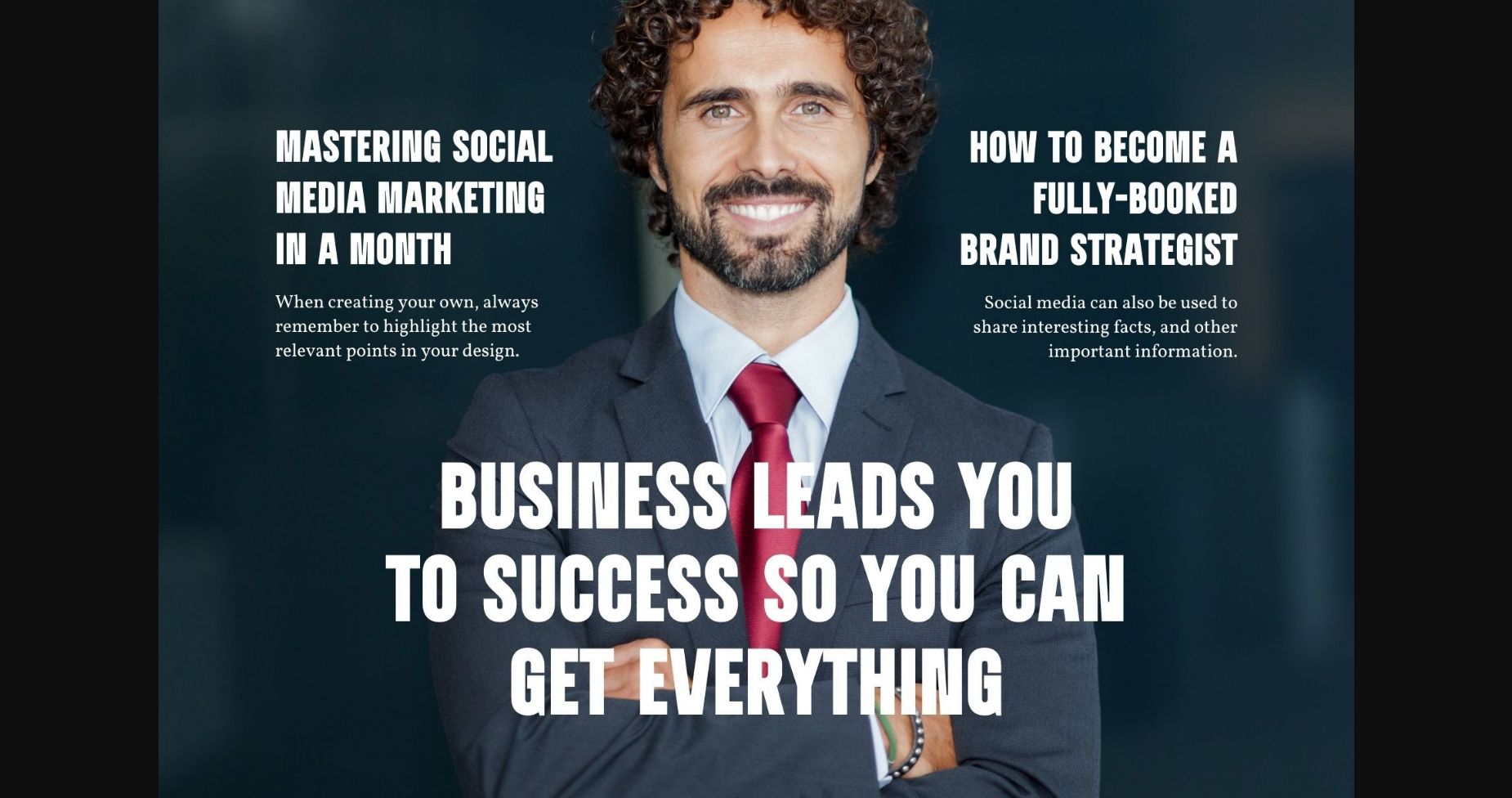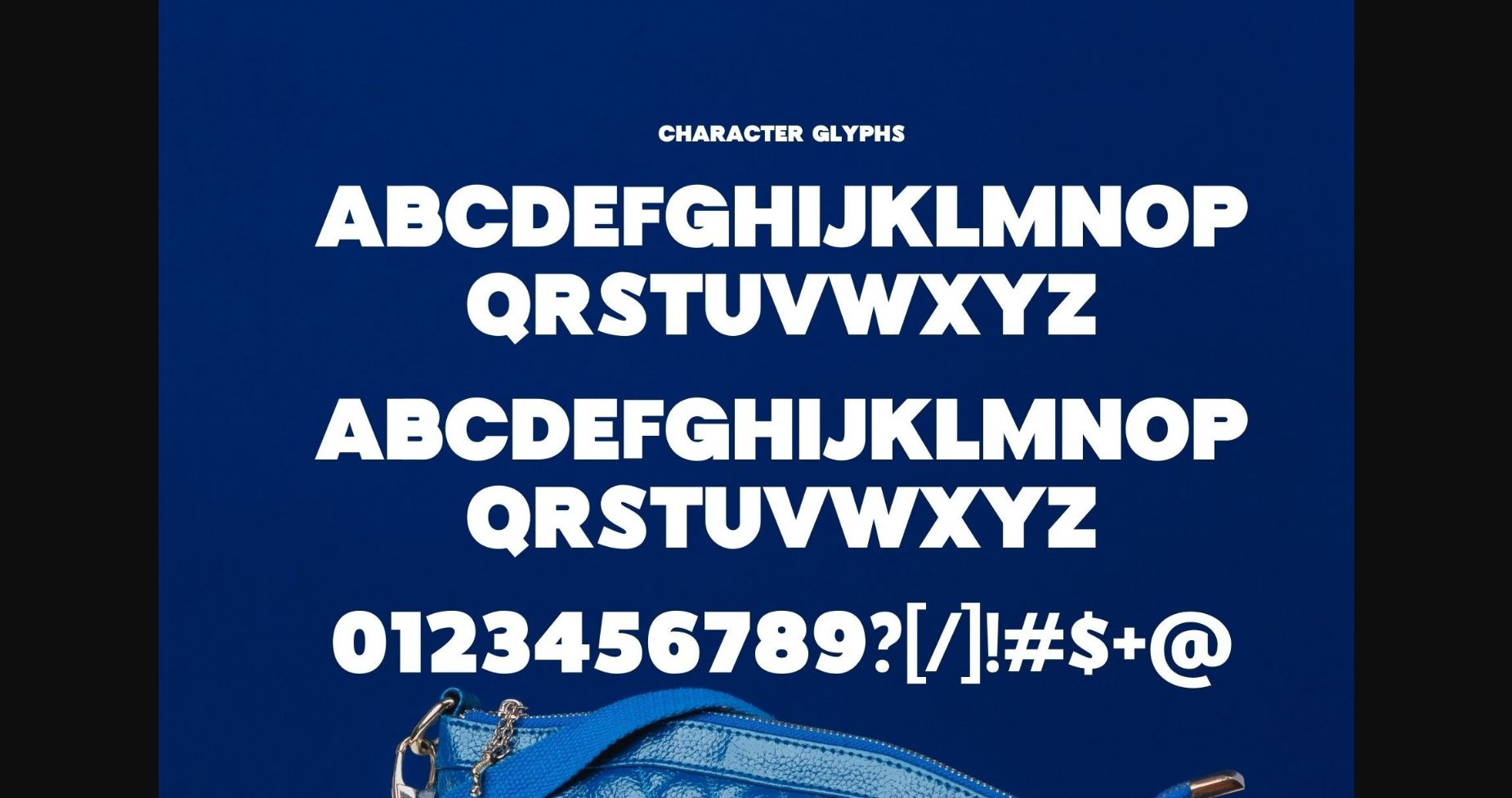
About Trends Font
Trends is a modern and bold sans serif font that commands attention with its strong and confident presence. Its bold weight and clean lines make it perfect for creating impactful headlines and eye-catching designs. Whether used in print or digital media, Trends brings a contemporary and stylish flair to any project, making it a popular choice among designers seeking a bold and modern aesthetic.